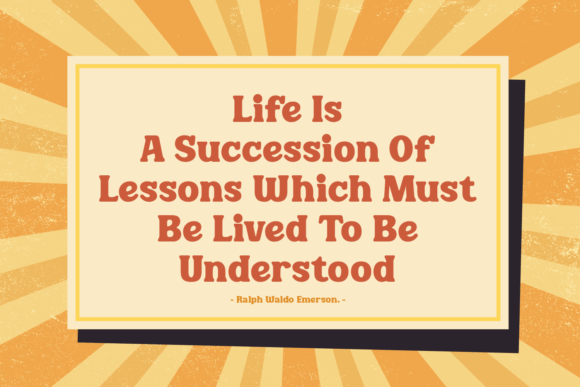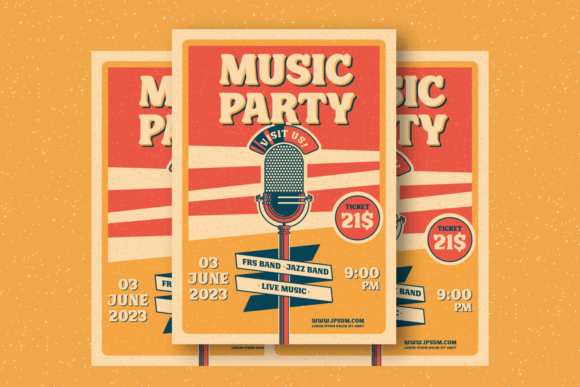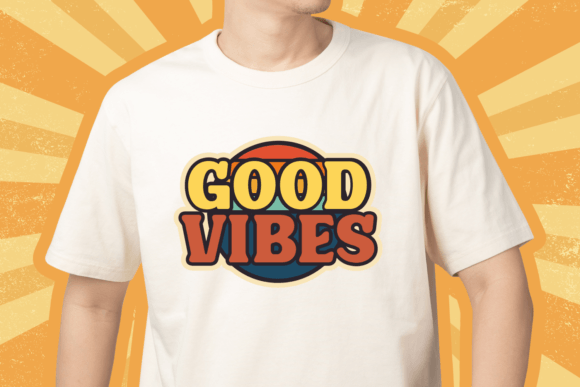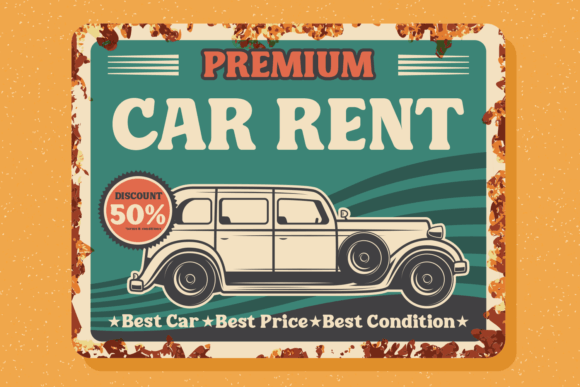
Introduction to Miego Retro Font
Remember that moment when you stumbled upon the perfect font to elevate your design project? It’s like a spark of creativity ignites, and suddenly, everything falls into place. For designers, finding that one special font can be a game-changer. And, trust us, we’ve found one that’s sure to get your creative juices flowing – the Miego Retro Font.
This striking display font is a true gem for designers looking to add a touch of nostalgia and playfulness to their projects. With its thick and bold lines, the Miego Retro Font is perfect for creating high-quality designs that stand out from the crowd. Whether you’re working on a free download project or need a design resource for a commercial venture, this font is an excellent choice.
Key Features of Miego Retro Font
- High-quality design suitable for creative projects, offering a unique and nostalgic aesthetic.
- Features a transparent background, allowing for easy layering and customization in design projects.
- Includes a range of characters and glyphs, including Latin and Cyrillic scripts, making it a versatile design resource.
- Designed with a high resolution of 300 DPI, ensuring crisp and clear display on various digital platforms.
- Perfect for vintage-inspired designs, retro-style posters, and other creative projects that require a unique and eye-catching font.
Honest Review: Miego Retro Font
I recently had the chance to experiment with the Miego Retro Font for a creative project, and I must say it’s been a game-changer. This high-quality font has added a unique touch to my design, and I’m excited to share my honest review with you.
- The Miego Retro Font is incredibly versatile and can be used for a variety of creative projects, from digital art to print designs.
- The transparent background option is a huge plus, allowing me to easily integrate the font into my designs without any background distractions.
One of the limitations I’ve encountered is the limited font size options. While it’s not a major issue, it can be frustrating when trying to achieve a specific look.
Overall, I’m thoroughly impressed with the Miego Retro Font. Its unique aesthetic and high-quality design make it a valuable addition to any design resource collection. If you’re looking for a creative way to spice up your projects, I highly recommend giving this font a try.
The Miego Retro Font is a unique and versatile design resource, ideal for creative projects that require a touch of nostalgia. With a high-quality, pixel-perfect design, this font is perfect for designers looking to add a retro flair to their work.
Tips for Getting the Most Out of Miego Retro Font
– Use the Miego Retro Font in conjunction with other retro-themed design elements, such as distressed textures and vintage graphics.
– Experiment with different font sizes and styles to create visual interest.
– Use the font to add a touch of nostalgia to modern designs, such as social media graphics and blog posts.
The Miego Retro Font is perfect for a variety of design projects, including:
– Retro-themed websites and blogs
– Social media graphics and advertising
– Print materials, such as posters and flyers
– Digital products, such as ebooks and templates
Alternatives to Miego Retro Font